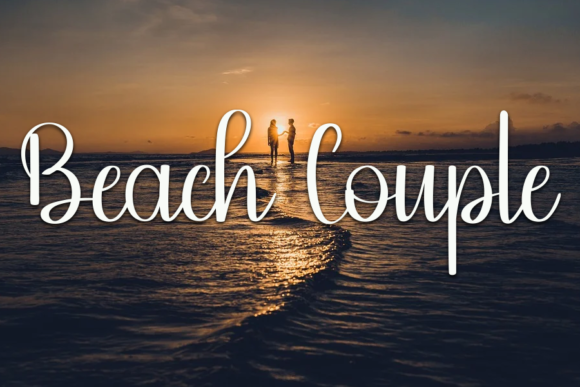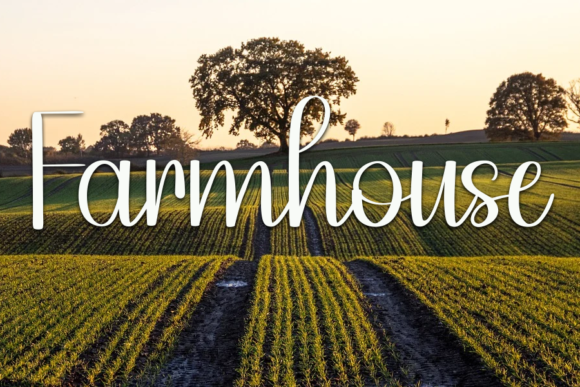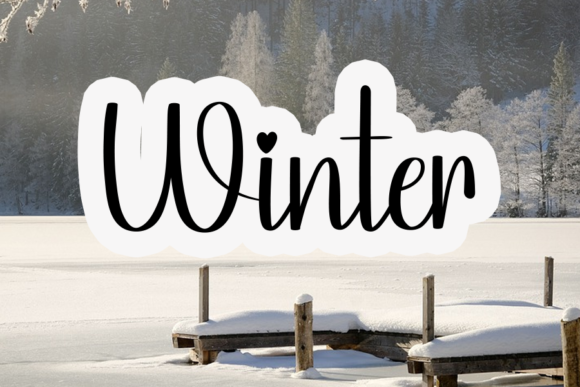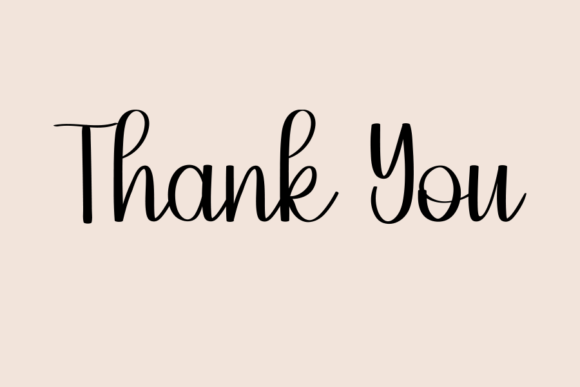
Sunday Font
About Sunday Font
“Sunday” is a relaxed handwritten font that has been meticulously designed to add a touch of whimsy and modernity to any project. This font beautifully combines the elegance of classic calligraphy with a fresh and contemporary aesthetic, making it a versatile choice for a wide range of applications.
The charm of “Sunday” lies in its ability to retain its classy calligraphic influences while exuding a modern and whimsical vibe. The subtle strokes and elegant curves are reminiscent of traditional handwriting, lending a personal and intimate feel to your text.
Despite its classic influences, “Sunday” feels contemporary. It’s a font that speaks to the past while being firmly rooted in the present. Whether you’re designing a logo, crafting an invitation, or creating a blog post, “Sunday” can help you convey your message with style and clarity.
Moreover, “Sunday” is not just about aesthetics. It’s also about functionality. It’s a versatile font that works well in a variety of contexts, from formal documents to creative projects. With its clean lines and clear legibility, “Sunday” is easy to read, making it a great choice for both print and digital media.
In a world where design matters, “Sunday” can help you stand out. Its blend of modern design and classic calligraphy makes it a versatile and stylish choice for designers and creatives. Choose “Sunday”, and let your designs shine.